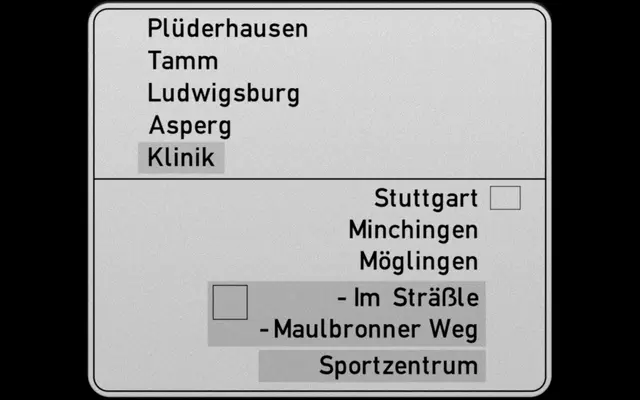
Onsite
Sociotype · 2023
Sociotype's in-house grotesk, combining a mid-century neo-grotesque base with the systematic widths of DIN 1451 across mono, condensed, standard and extended cuts.
An in-house grotesk that started as two styles for Sociotype's own use and grew into a superfamily of 42 styles across three core widths plus Mono and SemiMono variants. Onsite blends the evergreen feel of a mid-20th century neo-grotesque with the industrial structure of DIN 1451 German road signage and a hint of Eurostile in its flat-bottomed alternates. Subtly flattened curves, double-point structure and almost imperceptibly flared terminals emerge at display sizes, while a stable form holds legibility for small text. Sixteen stylistic sets, 766 glyphs per style and variable fonts cover everything from single-storey a and double-storey g to circled numerals, lenticular brackets and Hangul brackets.
An in-house grotesk loosely based on Max Miedinger's Neue Haas Grotesk, with subtly squared letterforms and a system of widths inspired by DIN 1451 German road signage. A retro-futurist hint of Aldo Novarese's Eurostile sits in the flat-bottomed alternates.